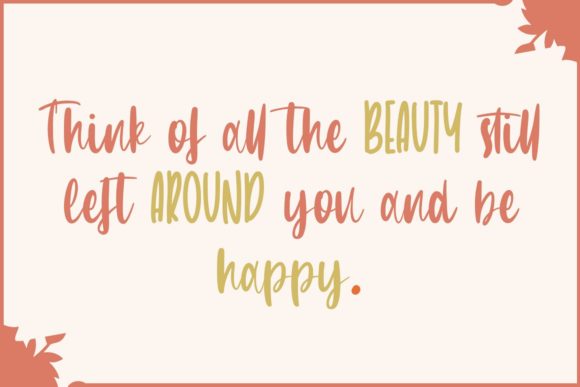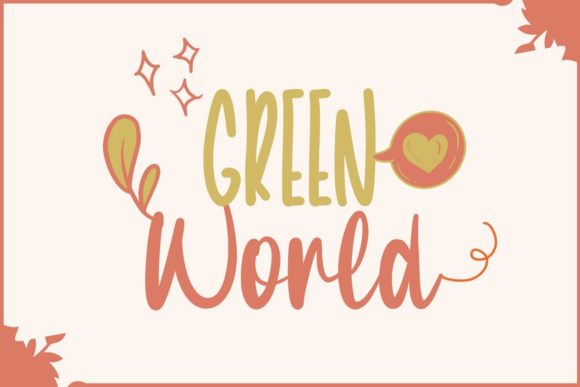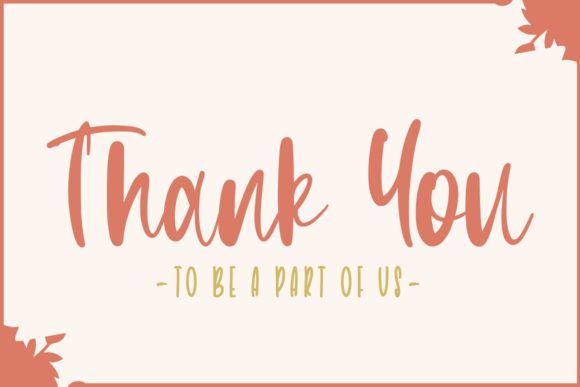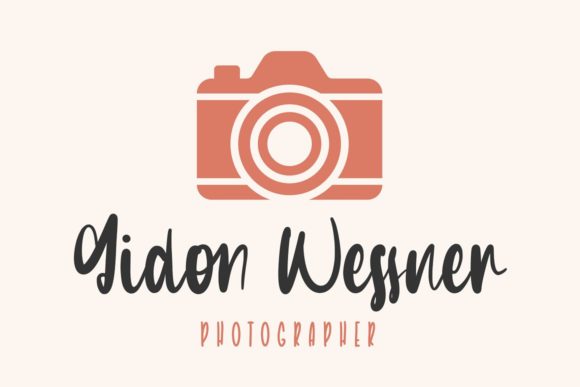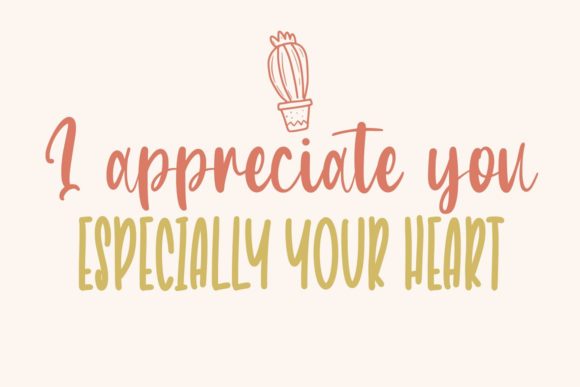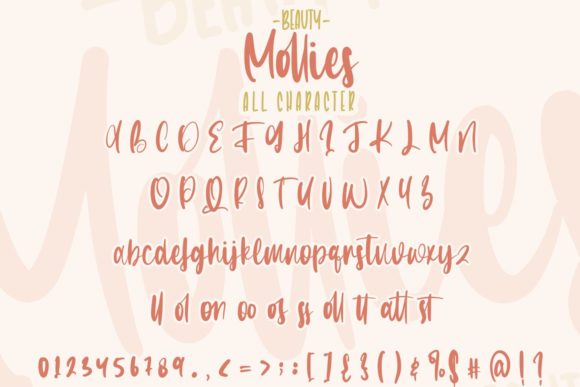
Discover Your Creative Spark with the Beauty Mollies Font
Have you ever stared at a blank canvas, trying to come up with the perfect idea for your next design project? The blank page can be daunting, but it’s in these moments that true creativity strikes. For designers, finding the right font can be the key to unlocking that spark. It’s like discovering a hidden treasure that brings your design to life. And that’s exactly what the Beauty Mollies Font does.
This stylish and joyful font is designed to add a touch of fun and whimsy to any design. With its clean and smooth vibe, it’s perfect for designers who want to create eye-catching and engaging visual content. Whether you’re working on a social media campaign, a branding project, or a digital publication, the Beauty Mollies Font is sure to elevate your design game.
Beauty Mollies Font Key Features
- Font Family: Beauty Mollies Font is a beautiful, elegant script font.
- Unique Characteristics: Features beautiful, flowing connections between letters and unique flourishes that add a touch of elegance to any design.
Beauty Mollies Font Review
Overall, I think the Beauty Mollies font is a charming and elegant addition to any design project. ✨ Its flowing script style and delicate flourishes make it perfect for creating beautiful, feminine designs. ✨
Here are some of the things that I think work well with the Beauty Mollies font:
- Highly legible, even at small sizes
- Great for creating a vintage or antique look
- Supports a wide range of languages
- May not be suitable for bold or modern designs
- Can be a bit too ornate for some uses
- Lacks a bold weight, which may limit its versatility
- May not be suitable for digital signage or other applications where readability is a top priority
- Beauty and fashion branding.
- High-end packaging and labels.
Overall, I think the Beauty Mollies font is a lovely choice for designers who want to add a touch of elegance and sophistication to their projects. While it may not be the best choice for every design, it’s a great option for those looking to create beautiful, feminine designs.
Tips for Getting the Most Out of Beauty Mollies Font
Use Beauty Mollies Font to add a touch of elegance and sophistication to your designs. Experiment with different font sizes, colors, and styles to create a unique look.
Beauty Mollies Font is perfect for:
Alternatives to Beauty Mollies Font
Great Vibes Font is a beautiful, elegant script font that is perfect for creating a sophisticated and romantic atmosphere. It is ideal for use in wedding invitations, birthday cards, and other special occasions. Great Vibes Font has a more refined and polished look compared to Beauty Mollies Font, making it a great choice for high-end designs.
Carolyna Pro Font is a modern, elegant script font that is perfect for creating a luxurious and sophisticated look. It is ideal for use in high-end branding, advertising, and packaging designs. Carolyna Pro Font has a more refined and sophisticated look compared to Beauty Mollies Font, making it a great choice for premium designs.
Alex Brush Font is a beautiful, elegant script font that is perfect for creating a romantic and whimsical atmosphere. It is ideal for use in wedding invitations, greeting cards, and other special occasions. Alex Brush Font has a more delicate and feminine look compared to Beauty Mollies Font, making it a great choice for designs that require a touch of elegance and sophistication.
Lobster Font is a fun, casual script font that is perfect for creating a playful and carefree atmosphere. It is ideal for use in social media graphics, blog posts, and other casual designs. Lobster Font has a more relaxed and informal look compared to Beauty Mollies Font, making it a great choice for designs that require a touch of fun and personality.
Unleashing Creativity with Beauty Mollies Font
Create a dreamy and romantic wedding invitation that showcases the elegance of Beauty Mollies Font. Use the font to display the wedding couple’s names, the wedding date, and a heartfelt message.